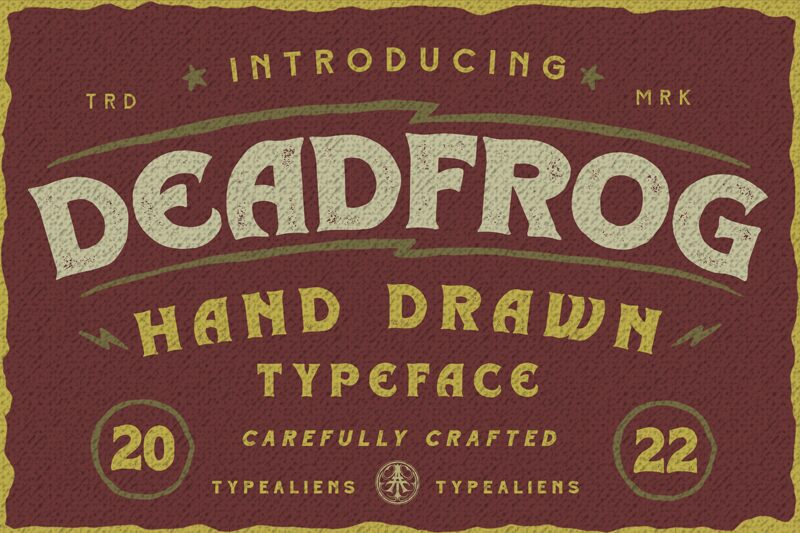
Deadfrog, designed by ilhamtaro, is a bold display font that commands attention with its striking eroded style. The ragged edges and distressed texture give it a raw, gritty aesthetic that evokes a sense of ruggedness and rebellion. Its bold weight ensures it stands out in any design, making it perfect for headlines, posters, and branding materials where you want to make a strong statement.
The eroded elements of Deadfrog add character and depth, making it ideal for projects needing an edgy or vintage feel. Whether you're designing for music events, creating impactful advertisements, or crafting unique merchandise designs, Deadfrog's distinctive appearance lends an unmistakable edge to your visual storytelling.